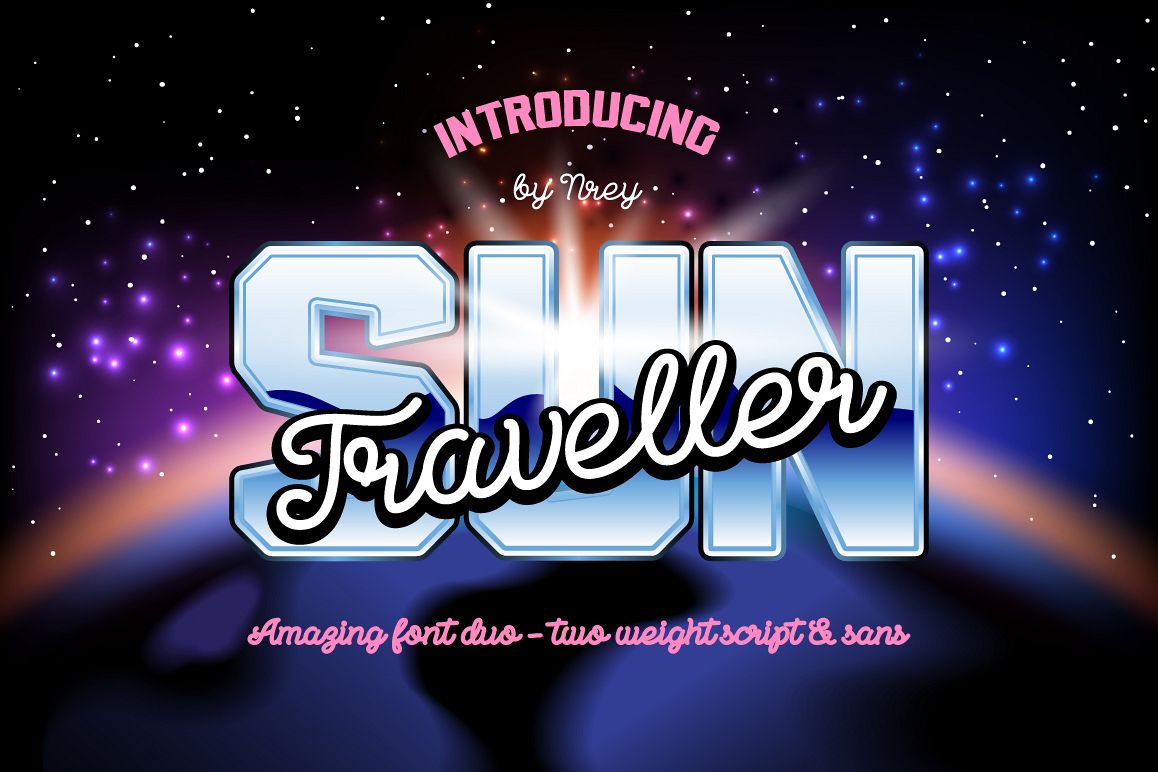
Created By NREY
Sun Traveller
Sun traveller Fat Bold
Sun Traveller Sans
Sun traveller
Introducing amazing font duo - Sun Traveller!
A cool monoline two weight script and brutal capitalised sans.
These two fonts would be perfect to combine in your design,
together or apart, on your branding, prints, logos, merchandise, websites, quotes and more.
Sun Traveller
By NREY